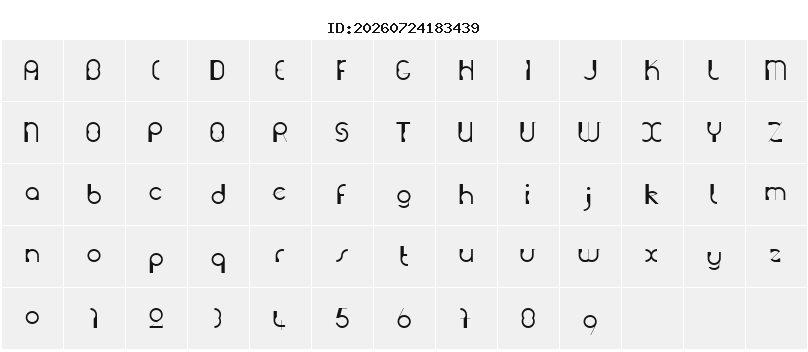
• Font Name: GrutchConstrukt
• Full Font Name: GrutchConstrukt
• Designer: Steeve GRUSON
About GrutchConstrukt.ttf
GrutchConstrukt.ttf is a modern, elegant sans-serif font designed for ultimate readability and visual harmony. Perfect for branding, headlines, web design, and print materials.